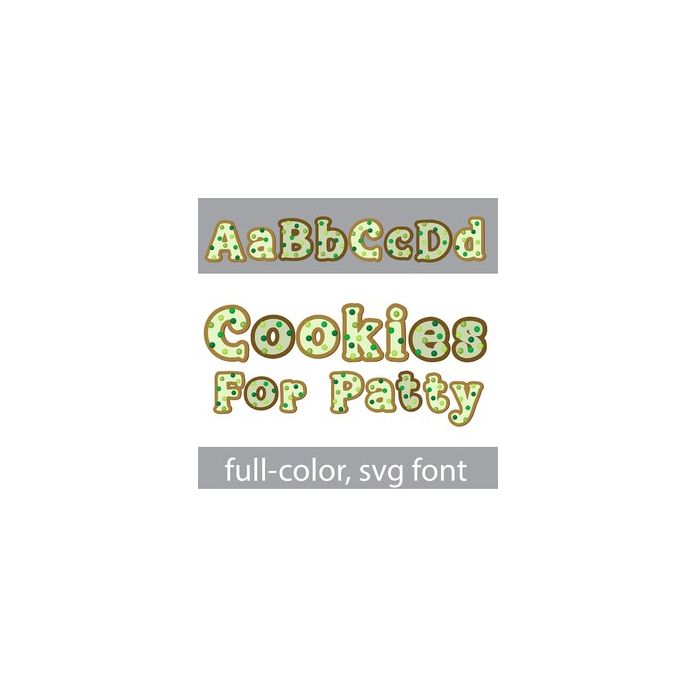
This full-color font features cookies with green frosting and sprinkles. There is an alt case w/ additional colors you can access through your system or Silhouette's glyph map.